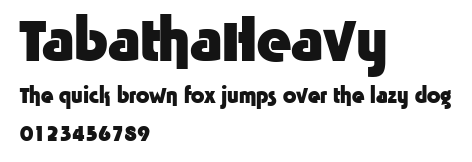
• Font Name: TabathaHeavy
• Full Font Name: TabathaHeavy Regular
• PostScript Name: TabathaHeavy
About TabathaHeavy.ttf
TabathaHeavy.ttf is a modern, elegant sans-serif font designed for ultimate readability and visual harmony. Perfect for branding, headlines, web design, and print materials.